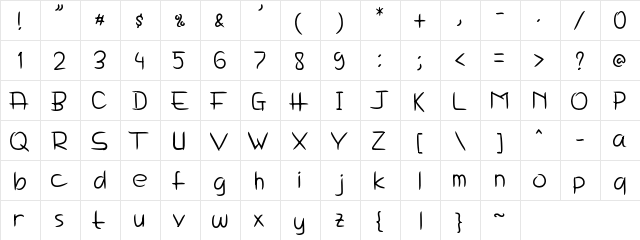
Delima Notes Regular
Design Context for Delima Notes Typeface
Delima Notes takes a measured approach to typography — its balanced proportions and neutral character make it a reliable workhorse for both digital and print work.